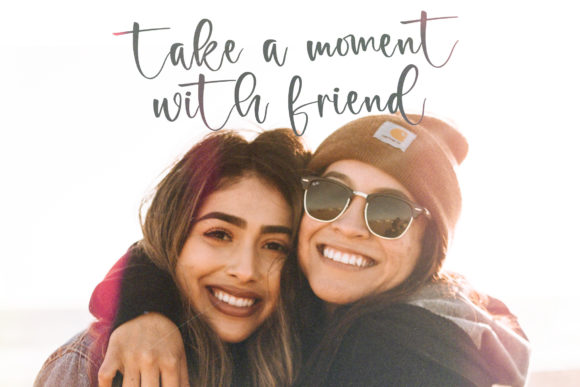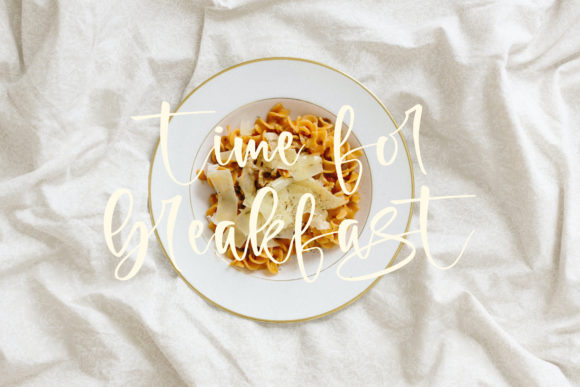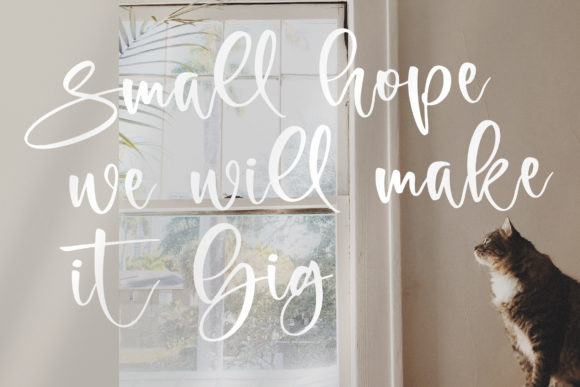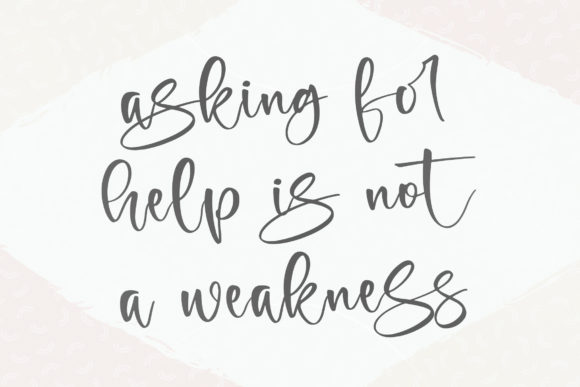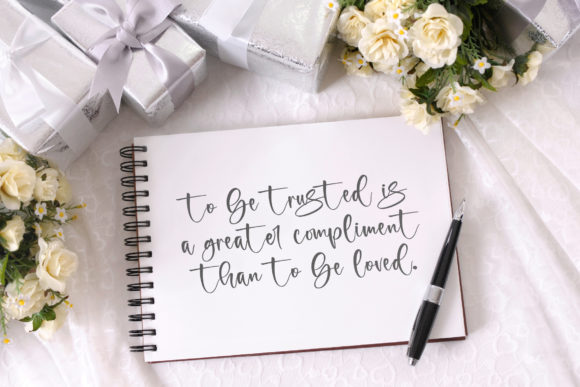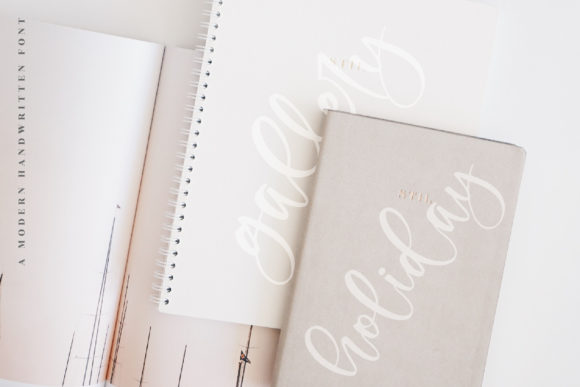
Introducing Bluecar Font: A Lovely and Timeless Handwritten Font
Are you a designer or crafter looking for a unique and captivating font to elevate your creative projects? Look no further than Bluecar Font, a beautiful and timeless handwritten font that’s perfect for creating eye-catching logos, branding, and quotes.
What Makes Bluecar Font Special?
Bluecar Font is a stunning example of handwritten typography, with elegant and flowing lines that exude a sense of sophistication and charm. Its timeless design makes it suitable for a wide range of applications, from modern branding and advertising to craft projects and DIY endeavors.
Key Features of Bluecar Font
• Handwritten with love: Bluecar Font is carefully crafted with a personal touch, giving it a unique and human feel that’s hard to replicate with machine-generated fonts.
• PUA encoded: This font is PUA (Private Use Area) encoded, which means you can access all of the glyphs and swashes with ease. This feature makes it incredibly versatile and easy to use.
• Elegant and versatile: Bluecar Font is designed to be versatile and adaptable, making it perfect for a wide range of applications, from logos and branding to quotes and social media graphics.
Why Choose Bluecar Font?
• Stand out from the crowd: With Bluecar Font, you can create unique and eye-catching designs that will help you stand out in a crowded marketplace.
• Easy to use: Thanks to its PUA encoding, Bluecar Font is incredibly easy to use, even for designers and crafters who are new to working with fonts.
• Timeless design: Unlike trendy fonts that quickly go out of style, Bluecar Font has a timeless design that will remain relevant for years to come.
How to Use Bluecar Font
• Pair it with other fonts: Bluecar Font pairs beautifully with other fonts, so don’t be afraid to experiment with different combinations to find the perfect look for your project.
• Experiment with swashes: With its PUA encoding, Bluecar Font comes with a range of swashes and glyphs that you can use to add extra flair to your designs.
• Use it for branding and logos: Bluecar Font is perfect for creating eye-catching logos and branding materials that will help you establish a strong visual identity.
Who is Bluecar Font for?
Bluecar Font is perfect for designers, crafters, and DIY enthusiasts who are looking for a unique and versatile font to elevate their creative projects. Whether you’re working on a branding project, creating social media graphics, or designing craft projects, Bluecar Font is an excellent choice.
Font Type Handwritten
What is Bluecar Font?
Bluecar Font is a lovely and timeless handwritten font that’s perfect for creating eye-catching logos, branding, and quotes.
Is Bluecar Font PUA encoded?
Yes, Bluecar Font is PUA encoded, which means you can access all of the glyphs and swashes with ease.